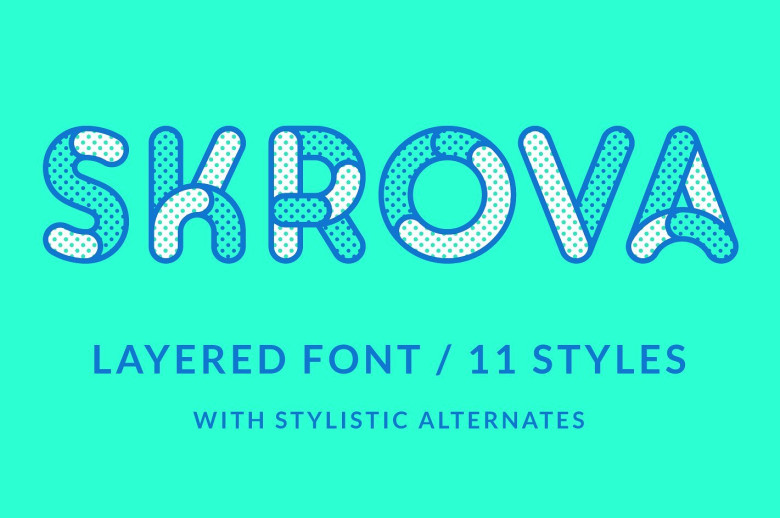
Skrova Layered Font
Introducing Skrova Layered Font! Skrova Layered designed by Studio Dot by dot. Layered font. Including 11 font styles. All Western European accents. Stylistic alternates. Unicase characters, all uppercase and lowercase.